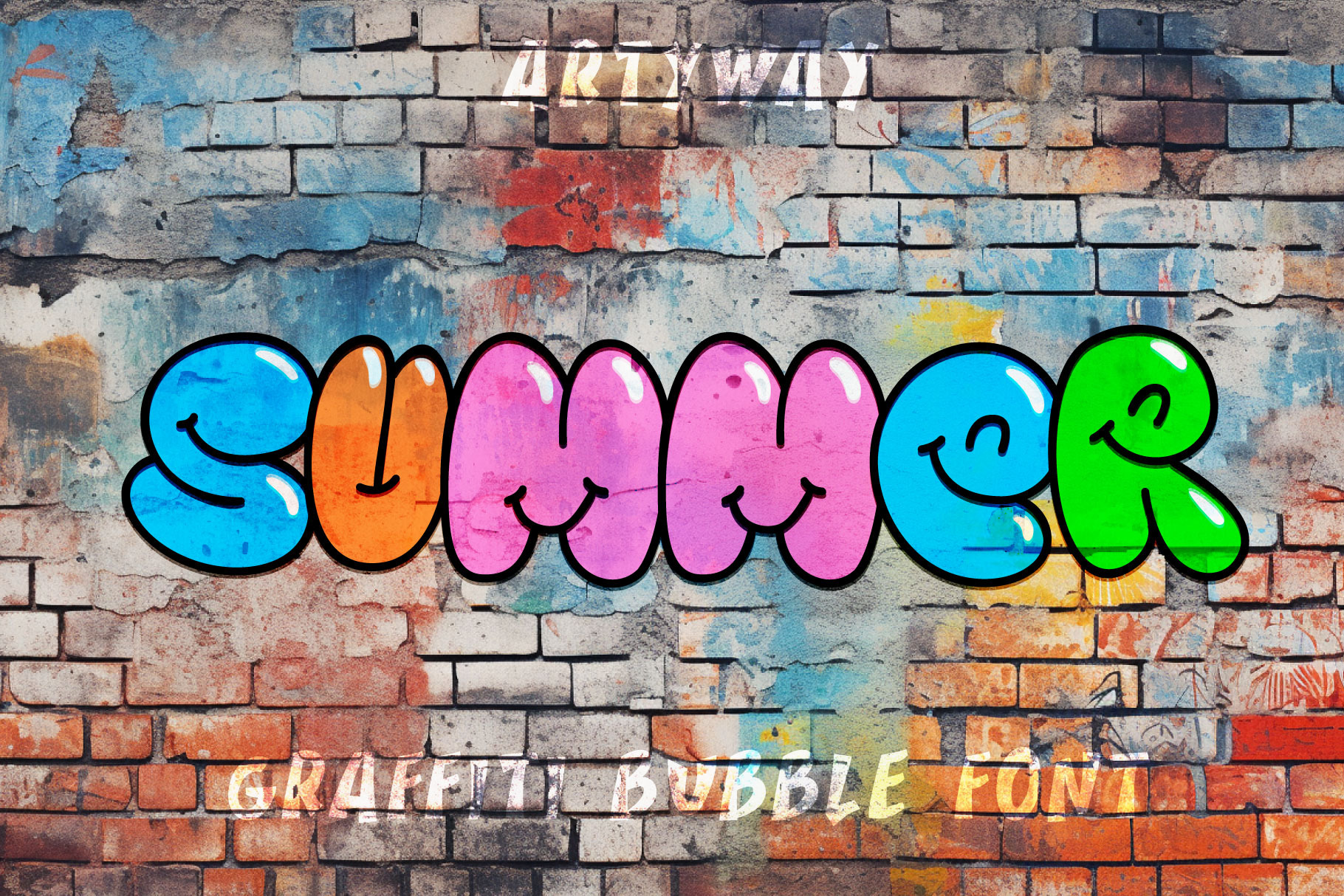
Bubble Graffiti Font
The Summer Font - Bouncy and Cheerful, this Cute Balloon Font for Fun Designs
Bring a fun and playful vibe to your designs with our adorable balloon font, available in color, doodle, blot versions and bonus! This font features cute balloon letters with smiling faces, perfect for adding a touch of whimsy to invitations, posters, and other designs. All versions are easy to download and come with commercial licensing, making it easy to add a playful touch to your next project.
- Colored style font for a vibrant and cheerful look
- Doodle-style font for hand-drawn feel
- Blot style for a trendy and textured look